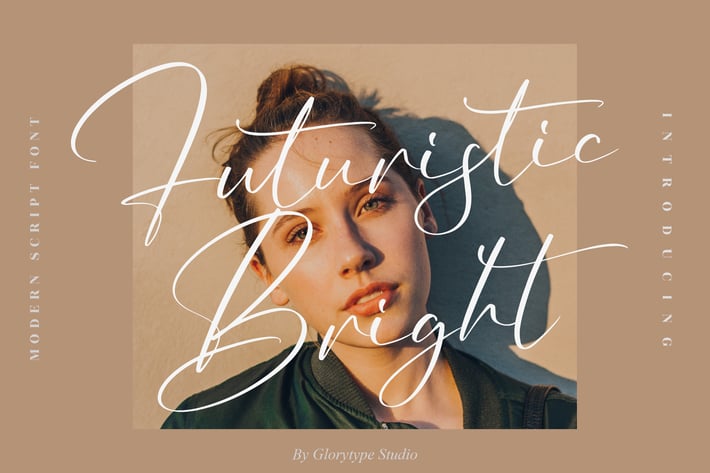
Futuristic Bright Script Font
Futuristic Bright Script Font is a modern handwritten script with long elegant strokes and a stylish contemporary feel. Its sleek design brings sophistication and a touch of luxury, making it ideal for both digital and print projects that demand a refined aesthetic.
+ Modern handwritten script with stylish long swashes
+ Smooth curves and elegant ligatures
+ Branding & logo design
+ Fashion campaigns & editorials
+ Wedding invitations & stationery
+ Social media graphics & quotes
+ Posters & promotional designs
Shine with elegance and style – Futuristic Bright is the script font that makes every word unforgettable.